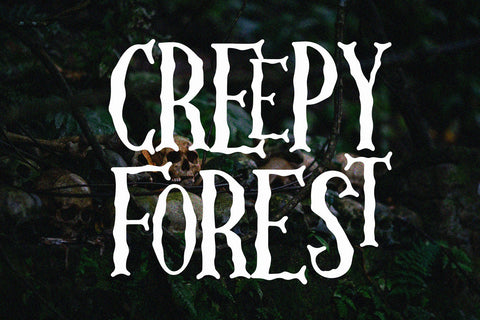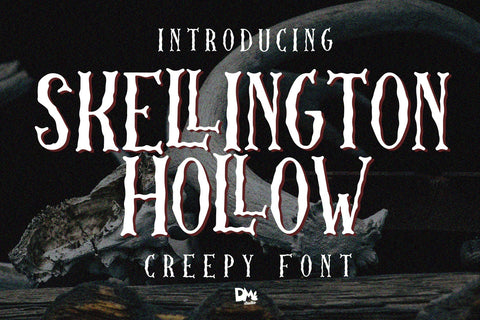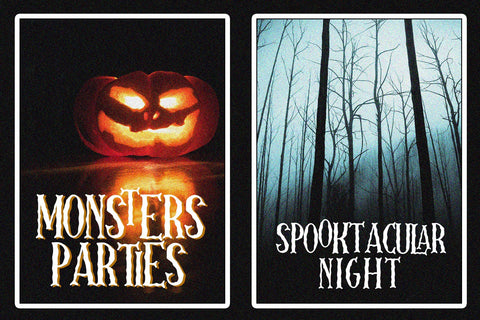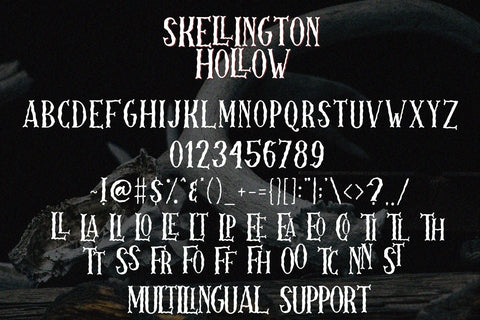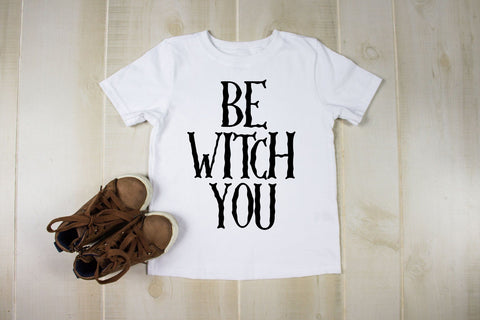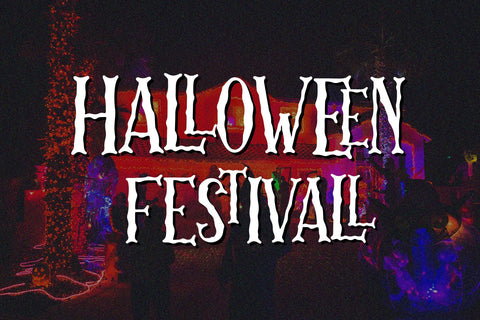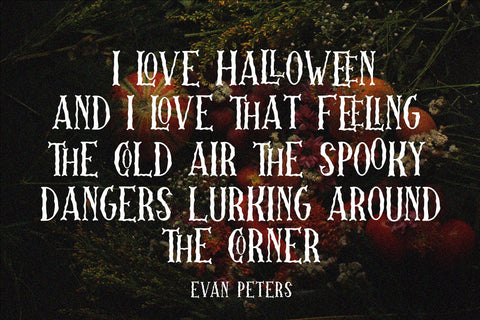
Skellington Hollow - Creepy Font
INTRODUCING
Skellington Hollow, the creepy font!
This is the textured display font, makes your design more unique and spoooky..
Great for your greeting card, birthday invitations, party decorations, posters, quotes, social media posts, and another fun projects.
- All in Caps Characters
- Numerics
- Standard Symbols
- Multilingual